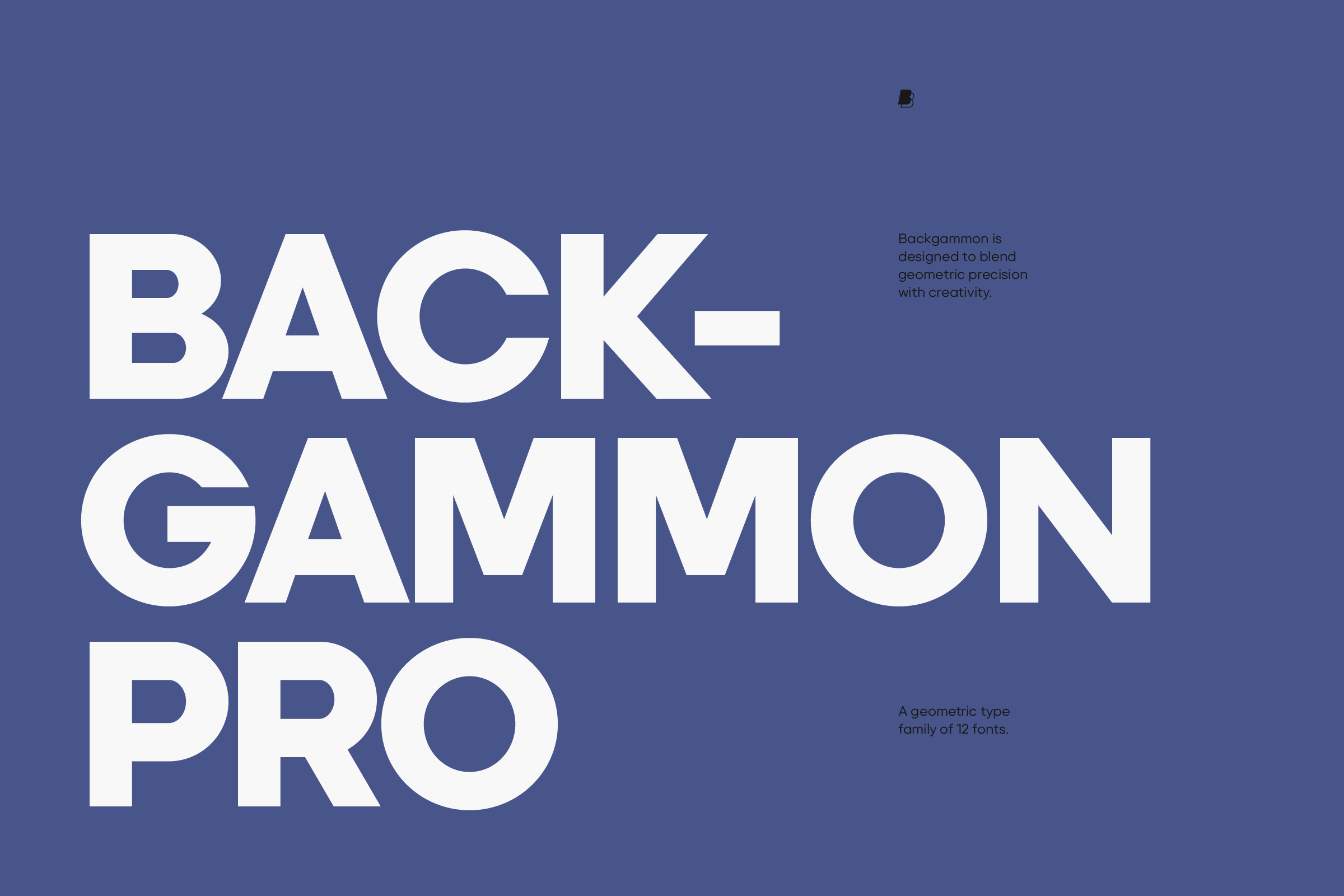
Backgammon Pro Typeface
Introducing Backgammon Pro, a meticulously designed geometric family that epitomizes modern minimalism and versatility. This type family consists of 12 fonts (6 upright and 6 italic styles), ranging from Thin to Black, crafted to cater to a broad range of design needs.
Backgammon Pro is a harmonious blend of functionality and aesthetic elegance, offering extensive support for over 300 languages across Latin, Greek, and Cyrillic scripts. This makes it an invaluable asset for global brands and international projects, ensuring seamless communication across cultures and regions.
Each font within the family boasts an impressive array of 773 glyphs, including 116 alternative characters, enabling unparalleled creative flexibility. This rich selection of glyphs allows designers to craft unique and captivating designs that stand out in any context.
Backgammon Pro is equipped with 15 OpenType features, including Stylistic Alternates (ss01 to ss20), Case-Sensitive Forms (case), Tabular Figures (tnum), Fractions (frac), and Localized Forms (locl).
Designed with the needs of creative professionals in mind, Backgammon Pro is perfect for branding, editorial design, digital experiences, and any project that requires a touch of geometric elegance. Whether you're creating a logo, crafting a user interface, or laying out a magazine, Backgammon Pro provides the tools you need to convey your message with clarity, style, and sophistication.